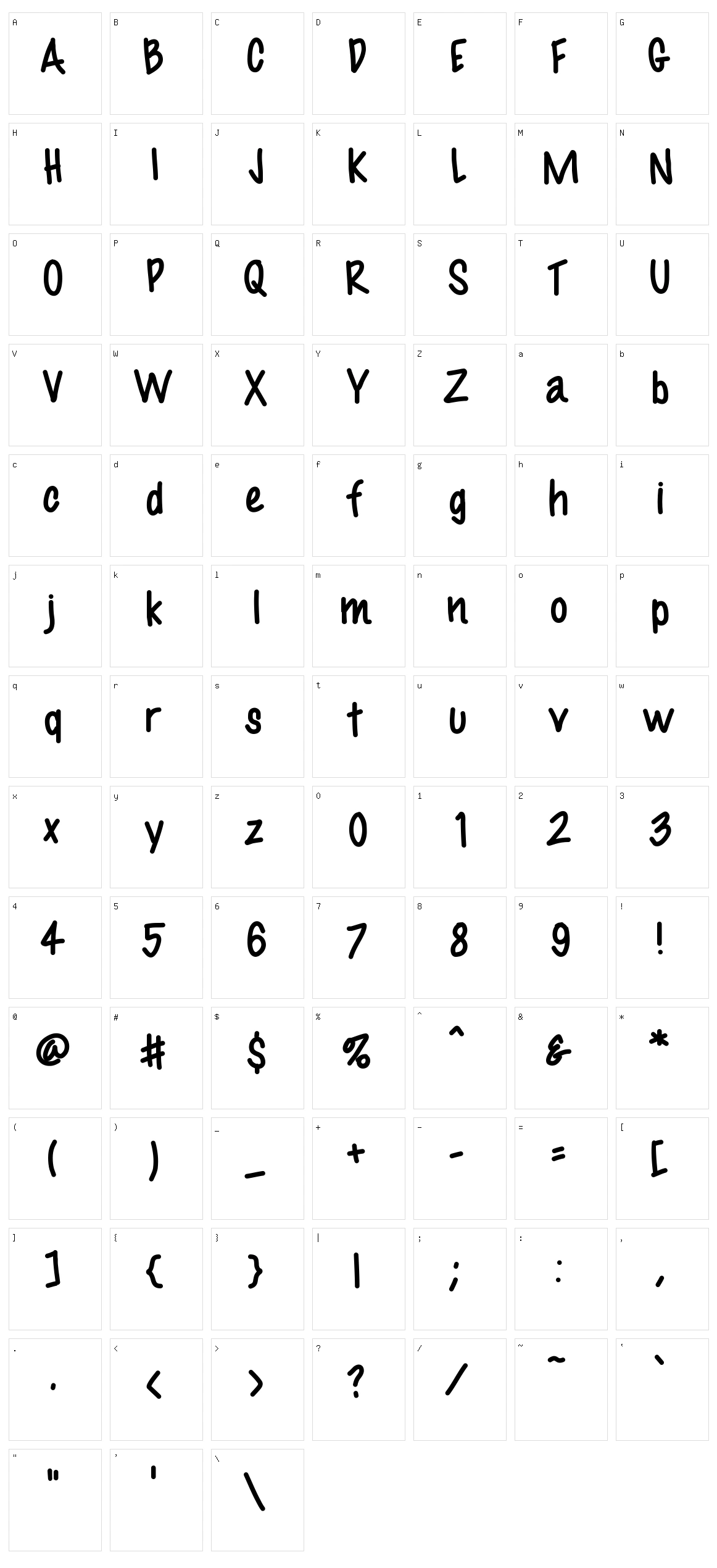
The free font Fil 3 is carefully designed by Filplay, showcasing a thoughtful balance of creativity and usability and falls under the Script font style. When you download the ZIP file, it contains only 12.81 KB of font files, making it lightweight and quick to download. Please review the license details below to understand permitted usage and distribution rights. If license information is not available, we recommend using this font for personal projects only or contacting the author directly for commercial usage permissions.